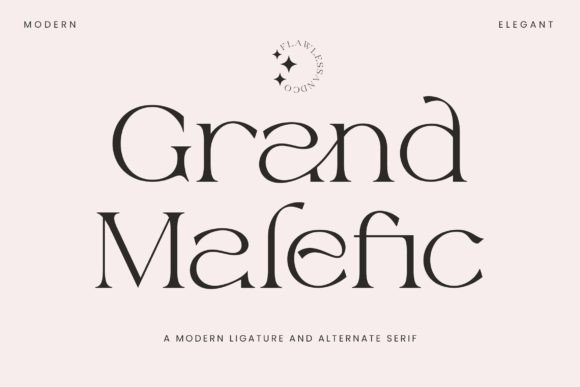
Behold, the Grand Malefic Font—an elegant, captivating serif that will cast a spellbinding charm upon your designs. Its graceful strokes, imbued with a modern twist, beckon you to embark on a journey of limitless creativity. With its mesmerizing connected letters, Grand Malefic effortlessly lends a touch of sophistication to an array of projects, from branding materials and logos to t-shirts and posters.
Imagine the allure of your branding materials, imbued with the timeless beauty of Grand Malefic. Envision your logo, crafted with this exquisite font, radiating an aura of professionalism and elegance. Witness the impact of your t-shirts, adorned with Grand Malefic's mesmerizing characters, turning heads wherever you go. And behold the transformation of your posters, infused with Grand Malefic's eloquence, capturing attention and igniting imaginations.
Journey into the world of photography, where Grand Malefic's presence amplifies the emotions conveyed in each frame. Let your quotes take flight, adorned with Grand Malefic's graceful curves, captivating your audience with their newfound depth and eloquence. With Grand Malefic by your side, your creative horizons expand infinitely.
Unleash the full potential of Grand Malefic's versatile nature, adapting effortlessly to a myriad of design endeavors. Its seamless integration with PUA encoding grants you effortless access to a treasure trove of glyphs and swashes, empowering you to unleash your creativity without boundaries.
Dive into the enchanting world of Grand Malefic, where elegance and modernity intertwine to create a font that will leave an indelible mark on your designs. Its versatility knows no bounds, captivating audiences in the realms of branding, fashion, art, and beyond. Let Grand Malefic be your muse, guiding you towards design triumphs and creative fulfillment.